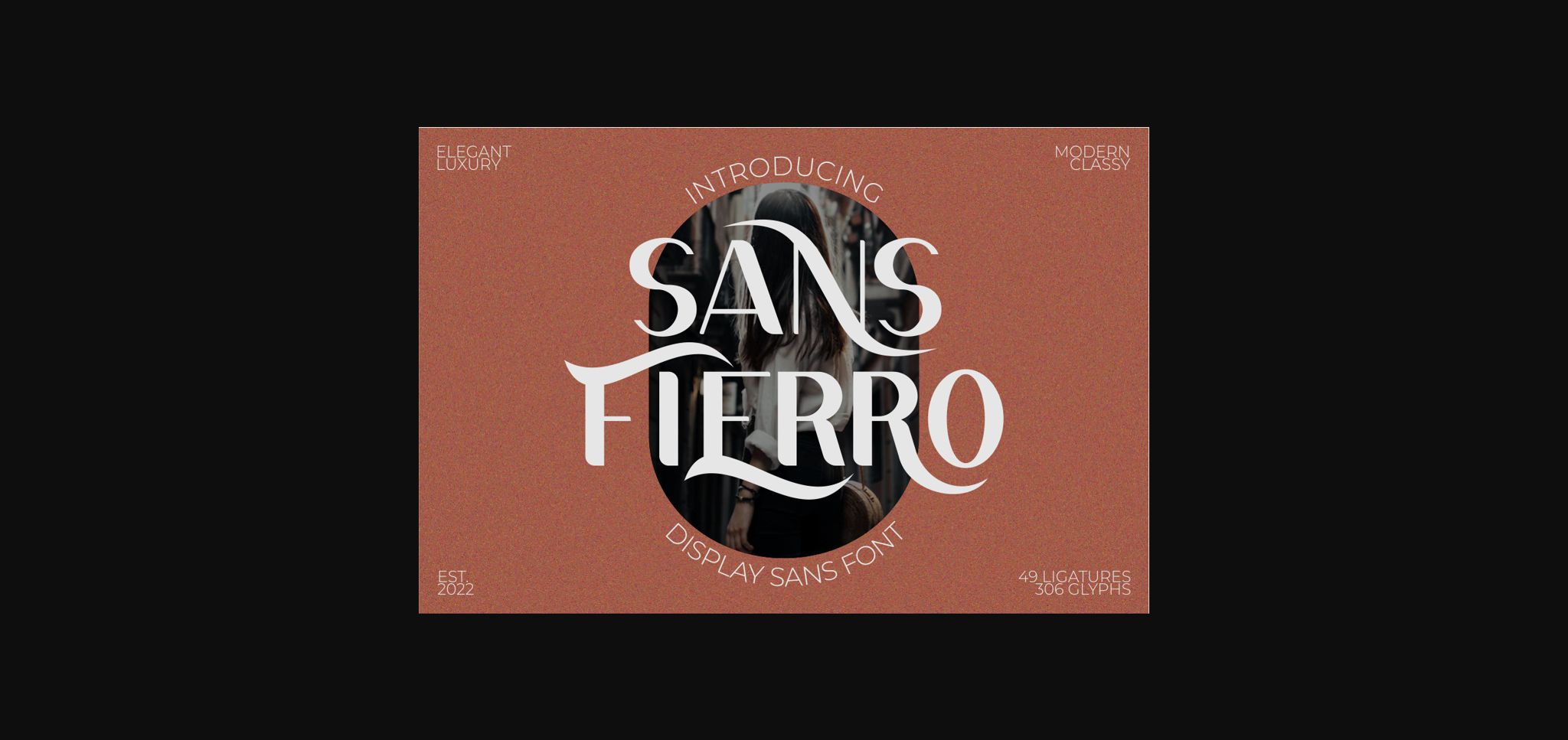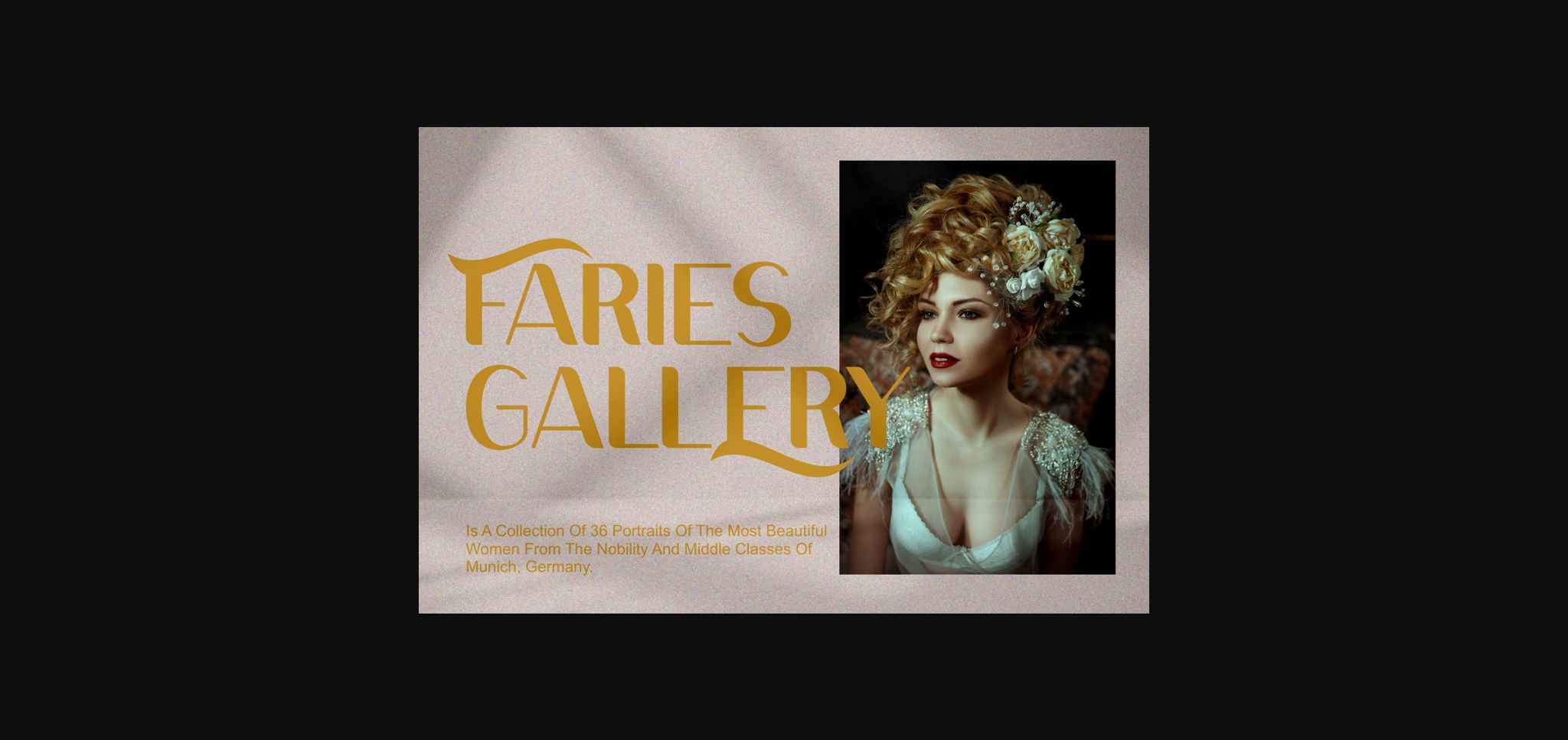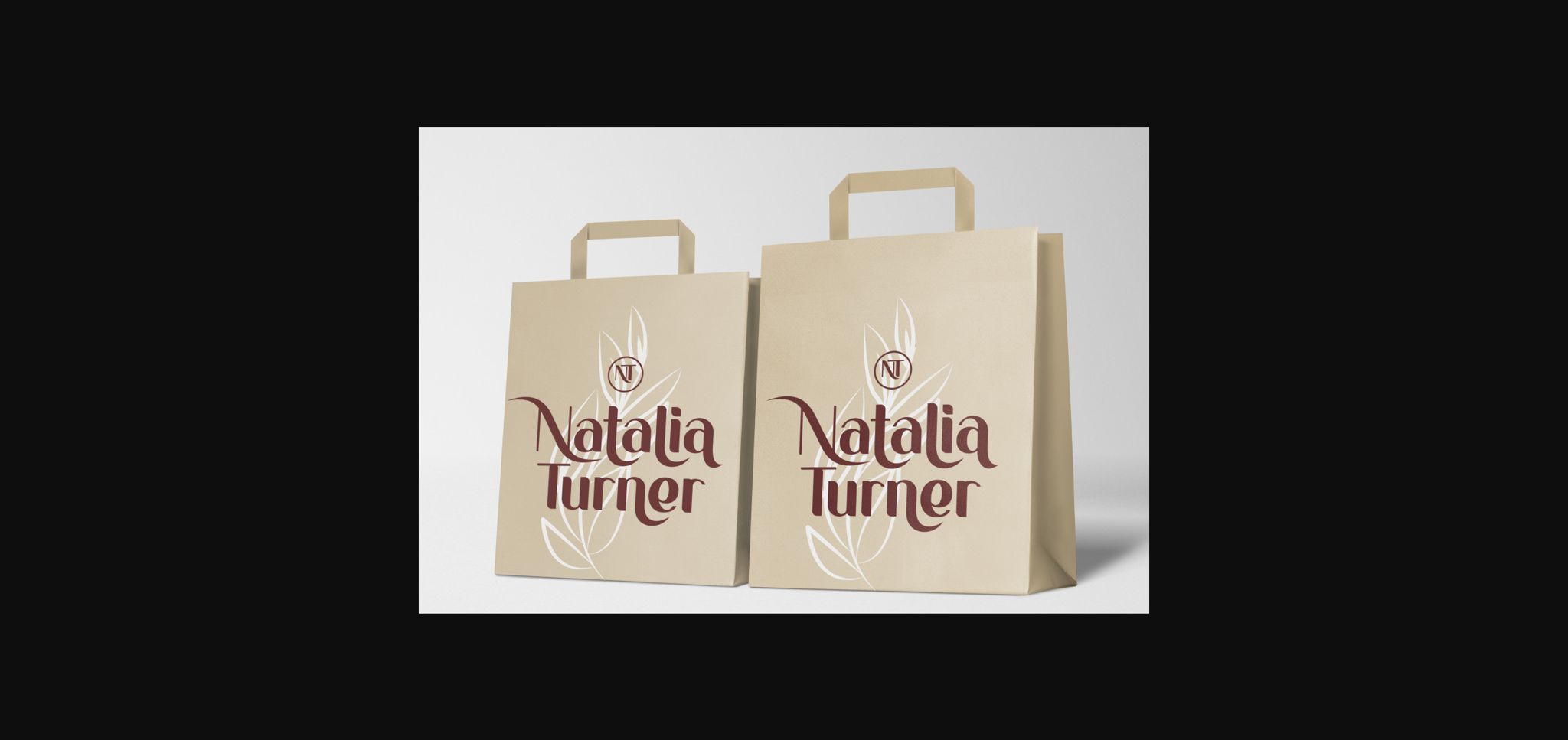
About Sans Fierro Font
Sans Fierro is a cool and trendy sans serif font. Masterfully designed to become a true favorite, this font has the potential to bring each of your creative ideas to the highest level! Sans Fierro is PUA encoded which means you can access all the glyphs and ligatures with ease!